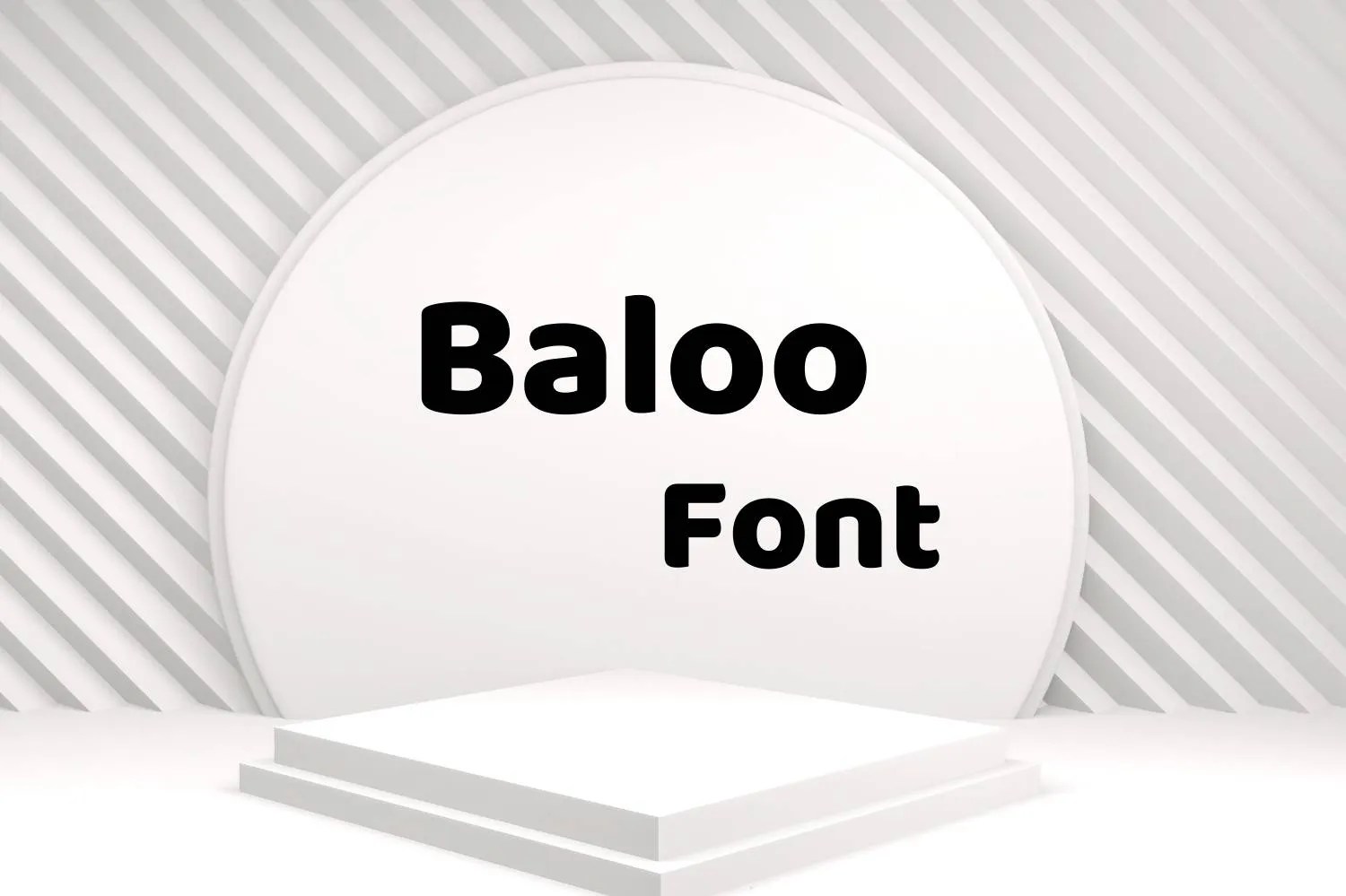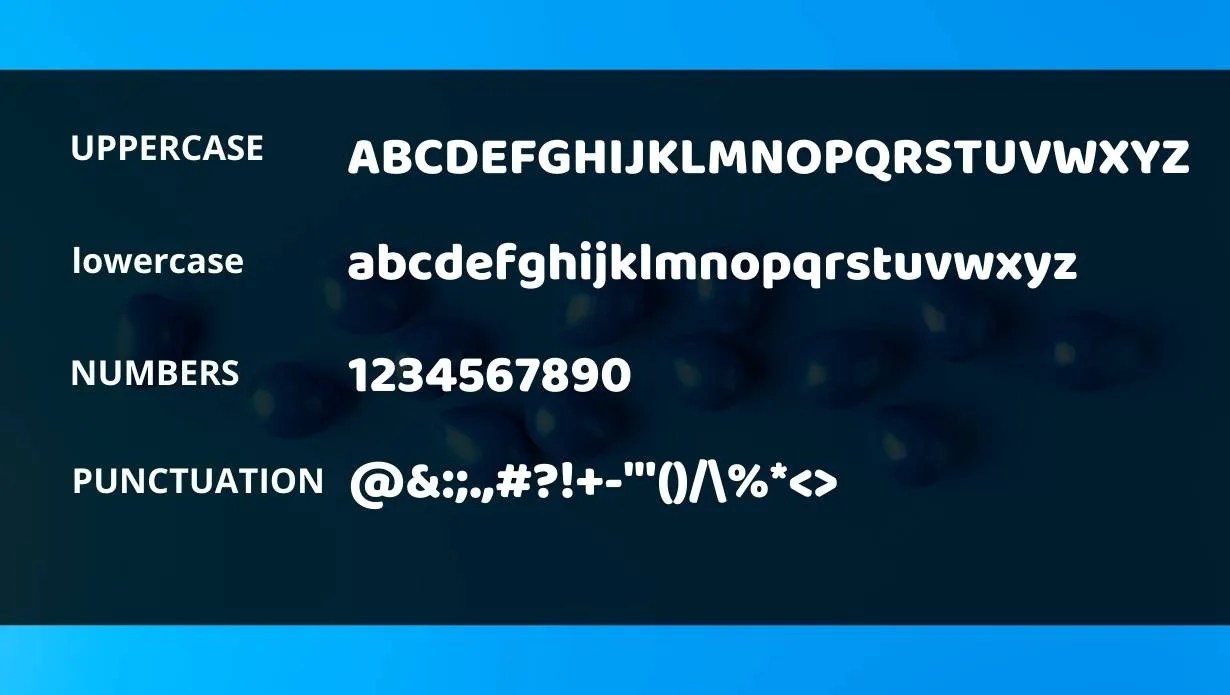
Baloo Font Code . Available in nine indian scripts along. A perfect blend of pointy paws in a coat of fur, baloo is an affable display typeface by ek type. Get your own website result size: Available in nine indian scripts plus. Explore baloo 2 available at adobe fonts. A perfect blend of pointy paws in a coat of fur, baloo is an affable display typeface by ek type. A perfect blend of pointy paws in a coat of fur, baloo is an affable display typeface by ek type. Available in ten indian scripts along with a latin counterpart, the family is unicode compliant. It's a display typeface that combines playful and modern elements. The new baloo 2 includes additional weights and glyphs, redesign of baloo tammudu and baloo bahaijan, engineering improvements. A typeface with 5 styles, available from adobe fonts for sync and web use. Baloo 2 is a font family designed by ek type, an indian type foundry.
A perfect blend of pointy paws in a coat of fur, baloo is an affable display typeface by ek type. The new baloo 2 includes additional weights and glyphs, redesign of baloo tammudu and baloo bahaijan, engineering improvements. Baloo 2 is a font family designed by ek type, an indian type foundry. Get your own website result size: It's a display typeface that combines playful and modern elements. A typeface with 5 styles, available from adobe fonts for sync and web use. Explore baloo 2 available at adobe fonts. Available in ten indian scripts along with a latin counterpart, the family is unicode compliant. A perfect blend of pointy paws in a coat of fur, baloo is an affable display typeface by ek type. Available in nine indian scripts plus.
Baloo Font Code Explore baloo 2 available at adobe fonts. A typeface with 5 styles, available from adobe fonts for sync and web use. The new baloo 2 includes additional weights and glyphs, redesign of baloo tammudu and baloo bahaijan, engineering improvements. Get your own website result size: A perfect blend of pointy paws in a coat of fur, baloo is an affable display typeface by ek type. A perfect blend of pointy paws in a coat of fur, baloo is an affable display typeface by ek type. A perfect blend of pointy paws in a coat of fur, baloo is an affable display typeface by ek type. Available in nine indian scripts plus. Available in nine indian scripts along. Explore baloo 2 available at adobe fonts. Baloo 2 is a font family designed by ek type, an indian type foundry. It's a display typeface that combines playful and modern elements. Available in ten indian scripts along with a latin counterpart, the family is unicode compliant.
Baloo Font Family Download Free for Desktop & font Baloo Font Code A perfect blend of pointy paws in a coat of fur, baloo is an affable display typeface by ek type. The new baloo 2 includes additional weights and glyphs, redesign of baloo tammudu and baloo bahaijan, engineering improvements. A typeface with 5 styles, available from adobe fonts for sync and web use. Available in nine indian scripts along. Get your. Baloo Font Code.
Baloo Font Code The new baloo 2 includes additional weights and glyphs, redesign of baloo tammudu and baloo bahaijan, engineering improvements. A perfect blend of pointy paws in a coat of fur, baloo is an affable display typeface by ek type. Explore baloo 2 available at adobe fonts. Get your own website result size: A typeface with 5 styles, available from adobe fonts. Baloo Font Code.
Baloo Font Family Baloo Font Code Explore baloo 2 available at adobe fonts. A typeface with 5 styles, available from adobe fonts for sync and web use. It's a display typeface that combines playful and modern elements. A perfect blend of pointy paws in a coat of fur, baloo is an affable display typeface by ek type. The new baloo 2 includes additional weights and glyphs,. Baloo Font Code.
Explore these Sunbay Brush and Baloo Raw two contemporary paintbrush Baloo Font Code Baloo 2 is a font family designed by ek type, an indian type foundry. Available in nine indian scripts plus. Get your own website result size: The new baloo 2 includes additional weights and glyphs, redesign of baloo tammudu and baloo bahaijan, engineering improvements. A typeface with 5 styles, available from adobe fonts for sync and web use. A perfect. Baloo Font Code.
Baloo Font Free Download Baloo Font Code Baloo 2 is a font family designed by ek type, an indian type foundry. Available in nine indian scripts plus. A perfect blend of pointy paws in a coat of fur, baloo is an affable display typeface by ek type. Get your own website result size: A perfect blend of pointy paws in a coat of fur, baloo is an. Baloo Font Code.
Baloo (Indian Font Family) Free font family Behance Baloo Font Code A typeface with 5 styles, available from adobe fonts for sync and web use. It's a display typeface that combines playful and modern elements. A perfect blend of pointy paws in a coat of fur, baloo is an affable display typeface by ek type. Get your own website result size: The new baloo 2 includes additional weights and glyphs, redesign. Baloo Font Code.
Baloo Font Fonts Studio Baloo Font Code Available in nine indian scripts plus. A perfect blend of pointy paws in a coat of fur, baloo is an affable display typeface by ek type. A perfect blend of pointy paws in a coat of fur, baloo is an affable display typeface by ek type. Get your own website result size: Baloo 2 is a font family designed by. Baloo Font Code.
Baloo font Baloo Font Code Explore baloo 2 available at adobe fonts. A typeface with 5 styles, available from adobe fonts for sync and web use. Get your own website result size: The new baloo 2 includes additional weights and glyphs, redesign of baloo tammudu and baloo bahaijan, engineering improvements. Available in nine indian scripts along. Available in nine indian scripts plus. Available in ten. Baloo Font Code.
Baloo font download Baloo Font Code Get your own website result size: It's a display typeface that combines playful and modern elements. A perfect blend of pointy paws in a coat of fur, baloo is an affable display typeface by ek type. Baloo 2 is a font family designed by ek type, an indian type foundry. Available in nine indian scripts along. Available in ten indian. Baloo Font Code.
Baloo Font Free by EK Type » Font Squirrel Baloo Font Code The new baloo 2 includes additional weights and glyphs, redesign of baloo tammudu and baloo bahaijan, engineering improvements. It's a display typeface that combines playful and modern elements. A perfect blend of pointy paws in a coat of fur, baloo is an affable display typeface by ek type. Available in ten indian scripts along with a latin counterpart, the family. Baloo Font Code.